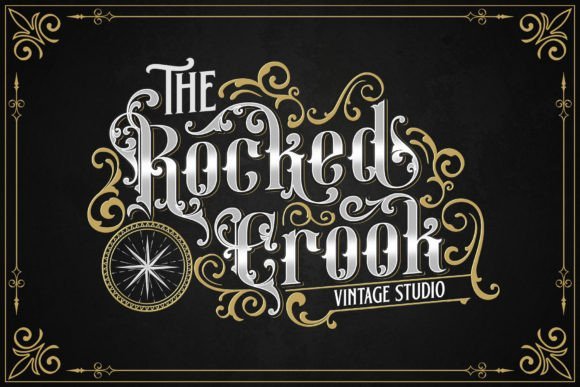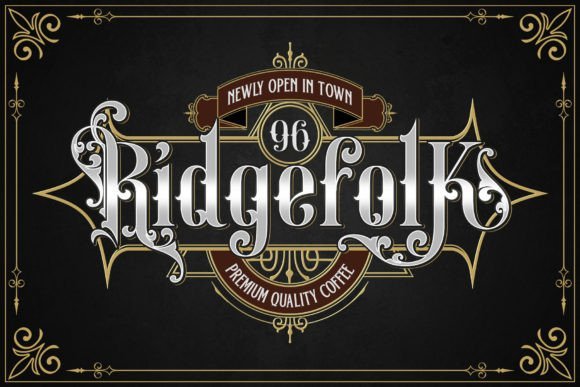
Bull Stand Font
The “Bull Stand Font Victorian” typeface is a particular and luxurious text style that radiates the class and complexity of the Victorian time. This textual style is a demonstration of the scrupulousness and craftsmanship that described the plan feel of that period.